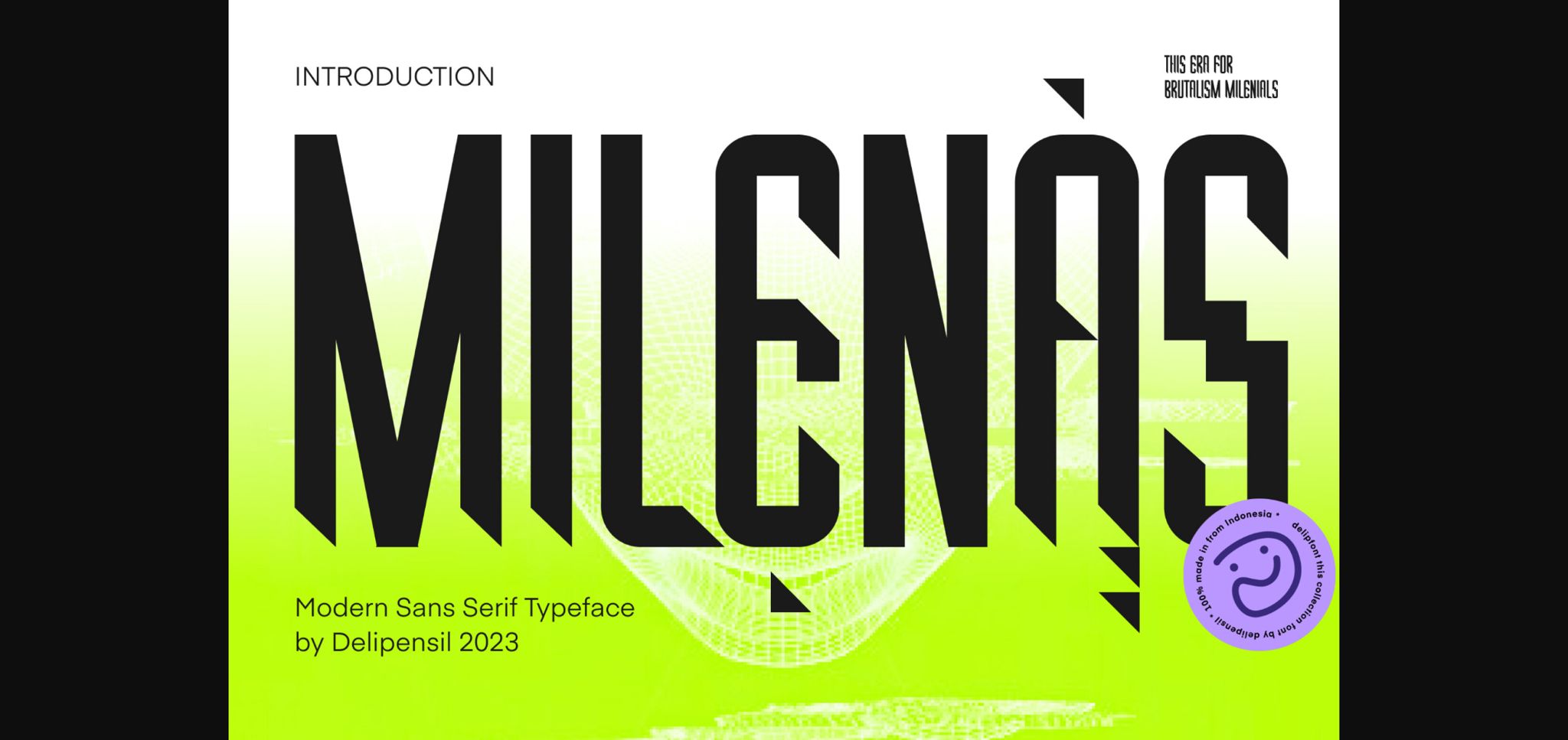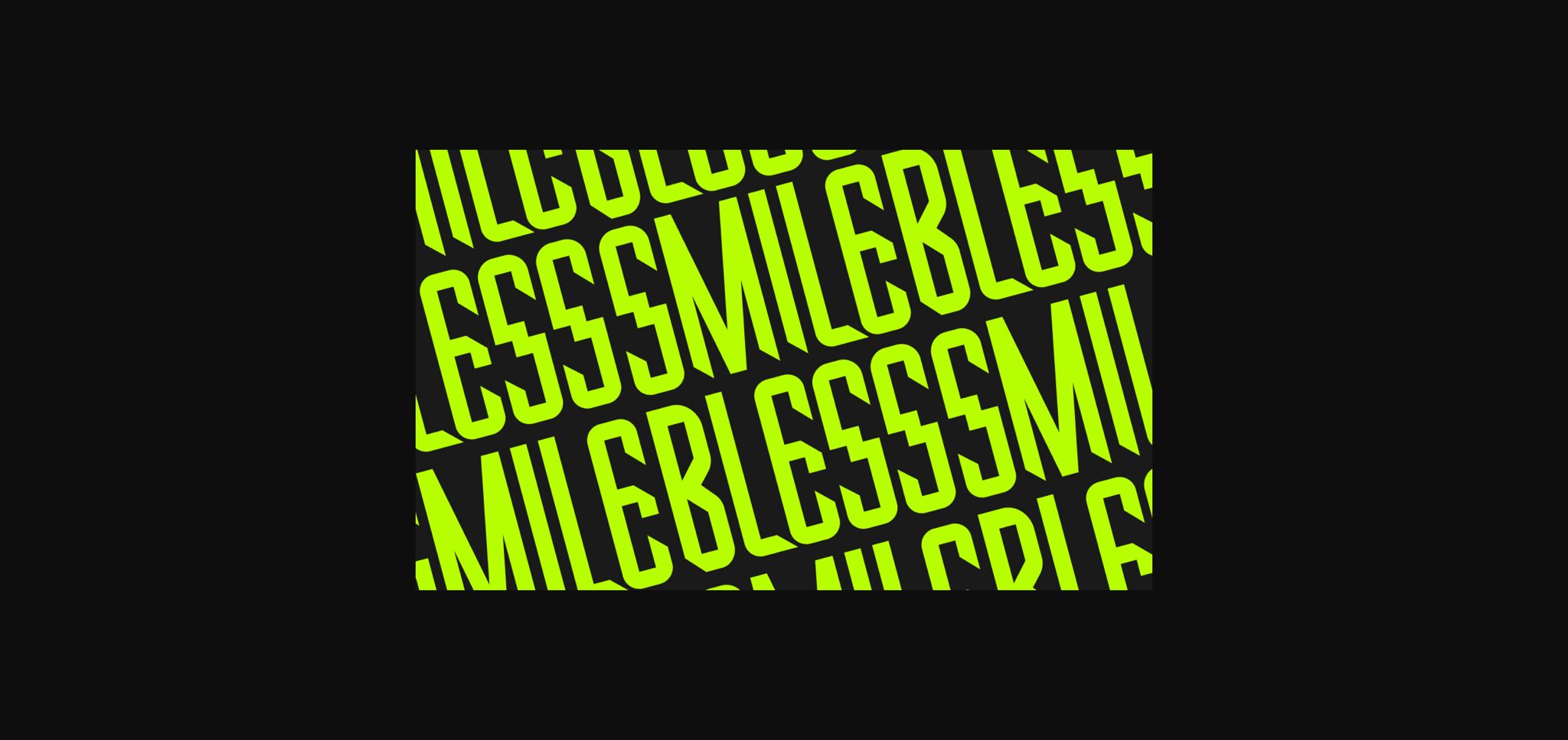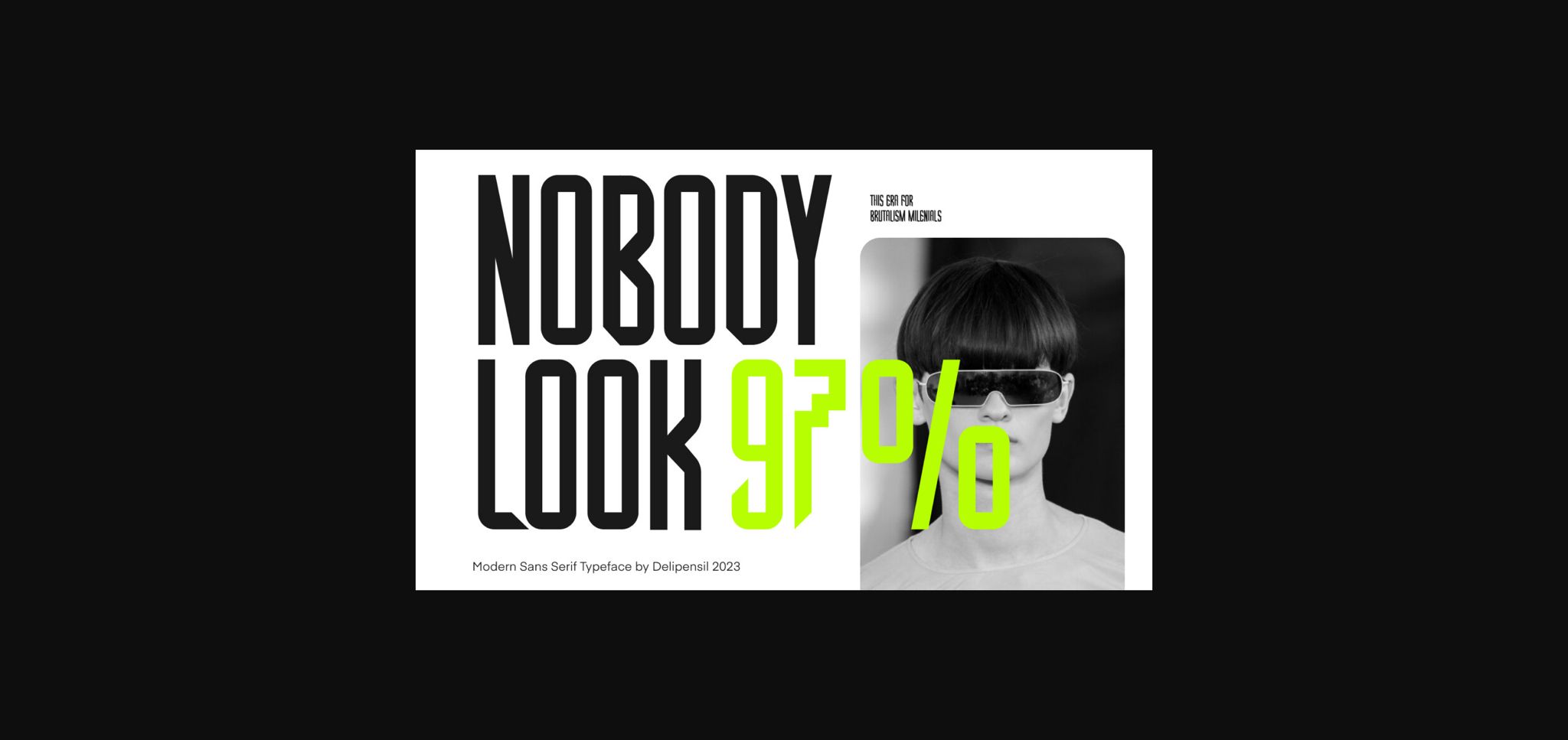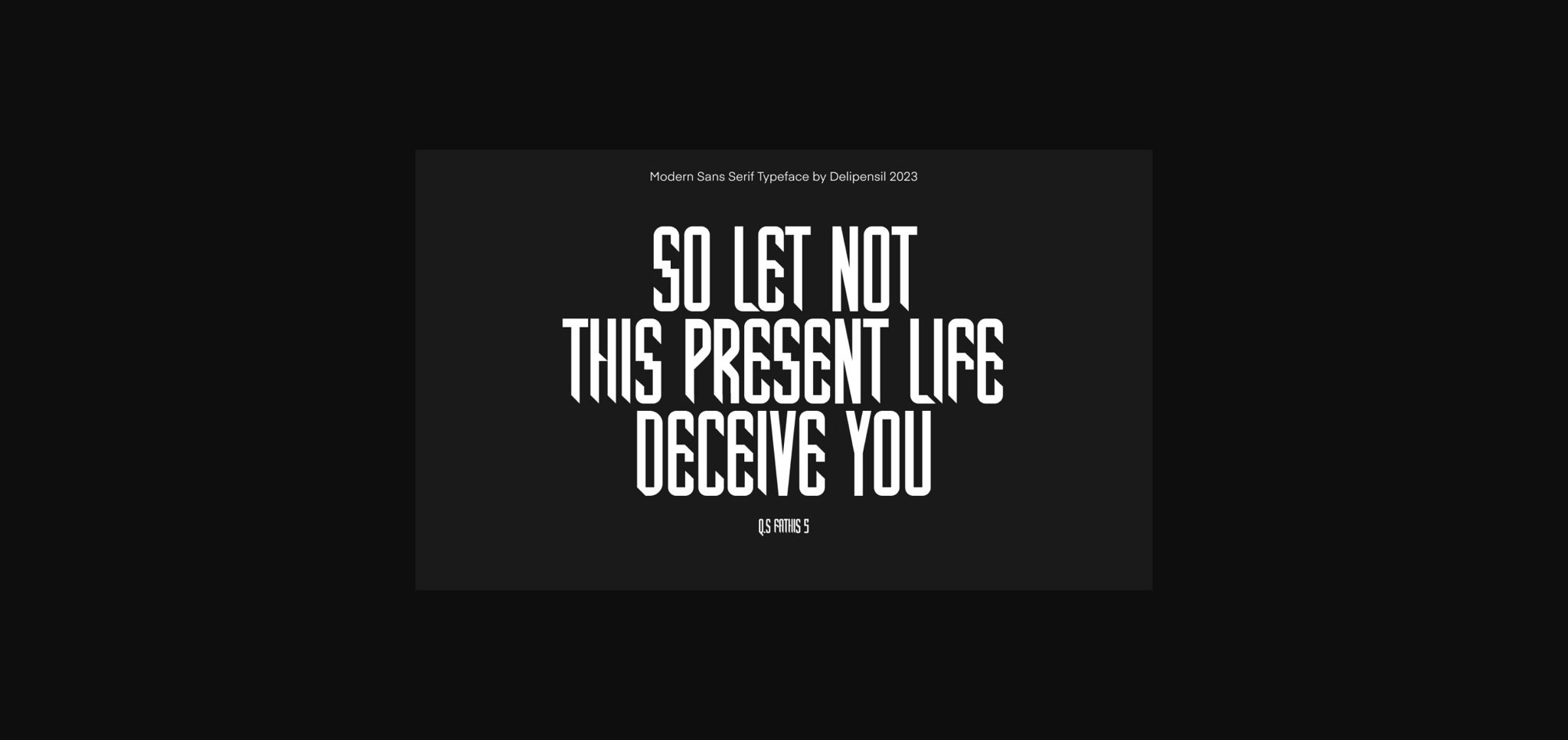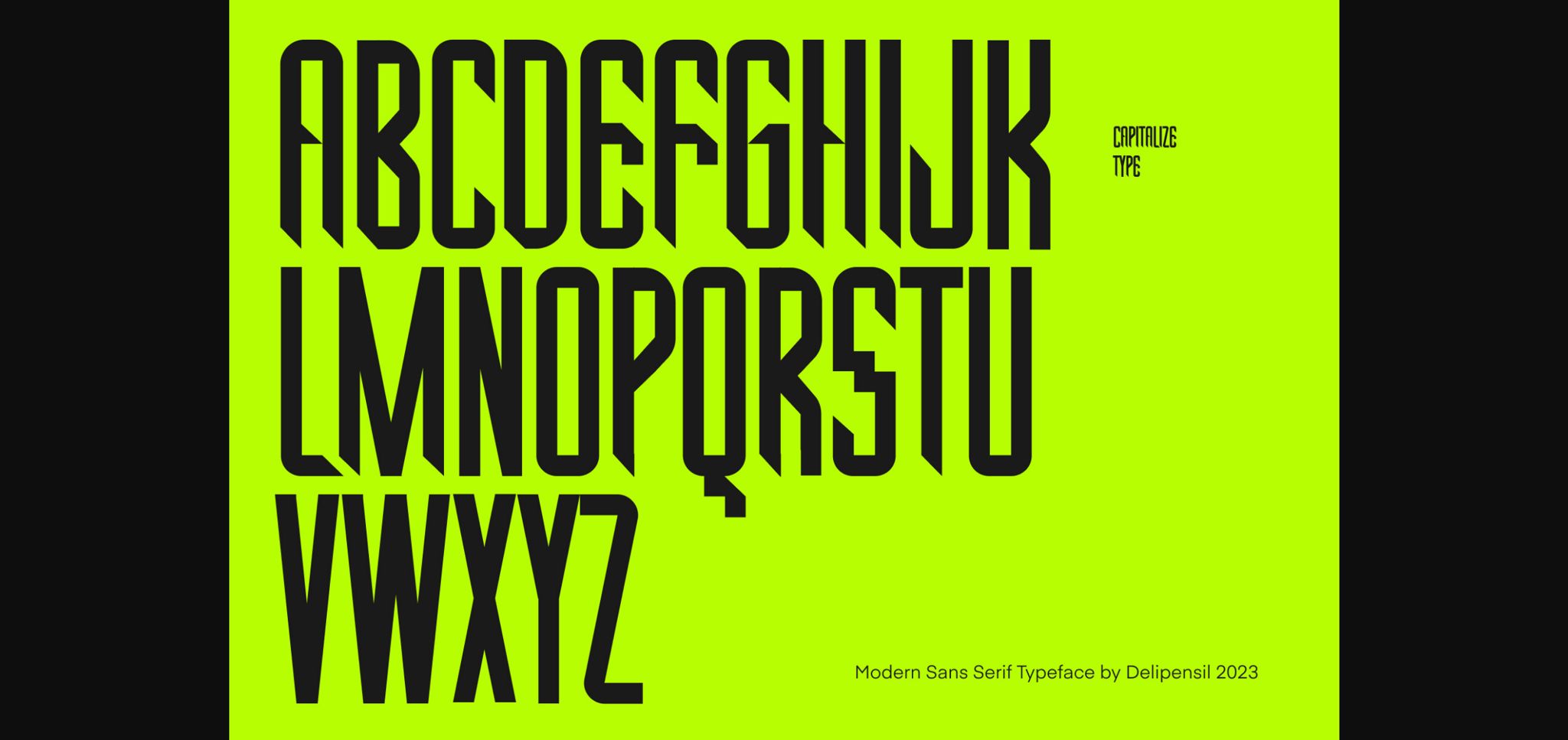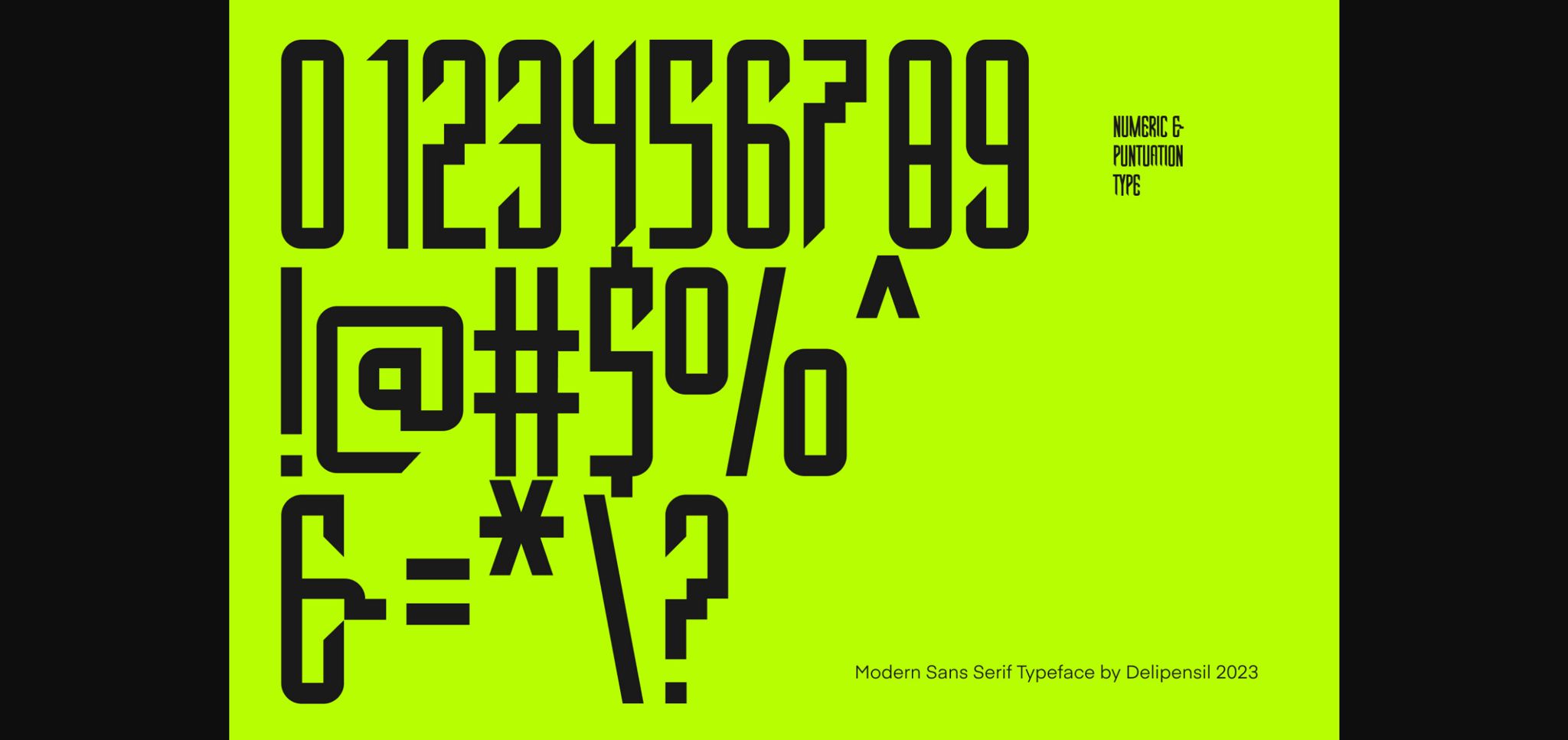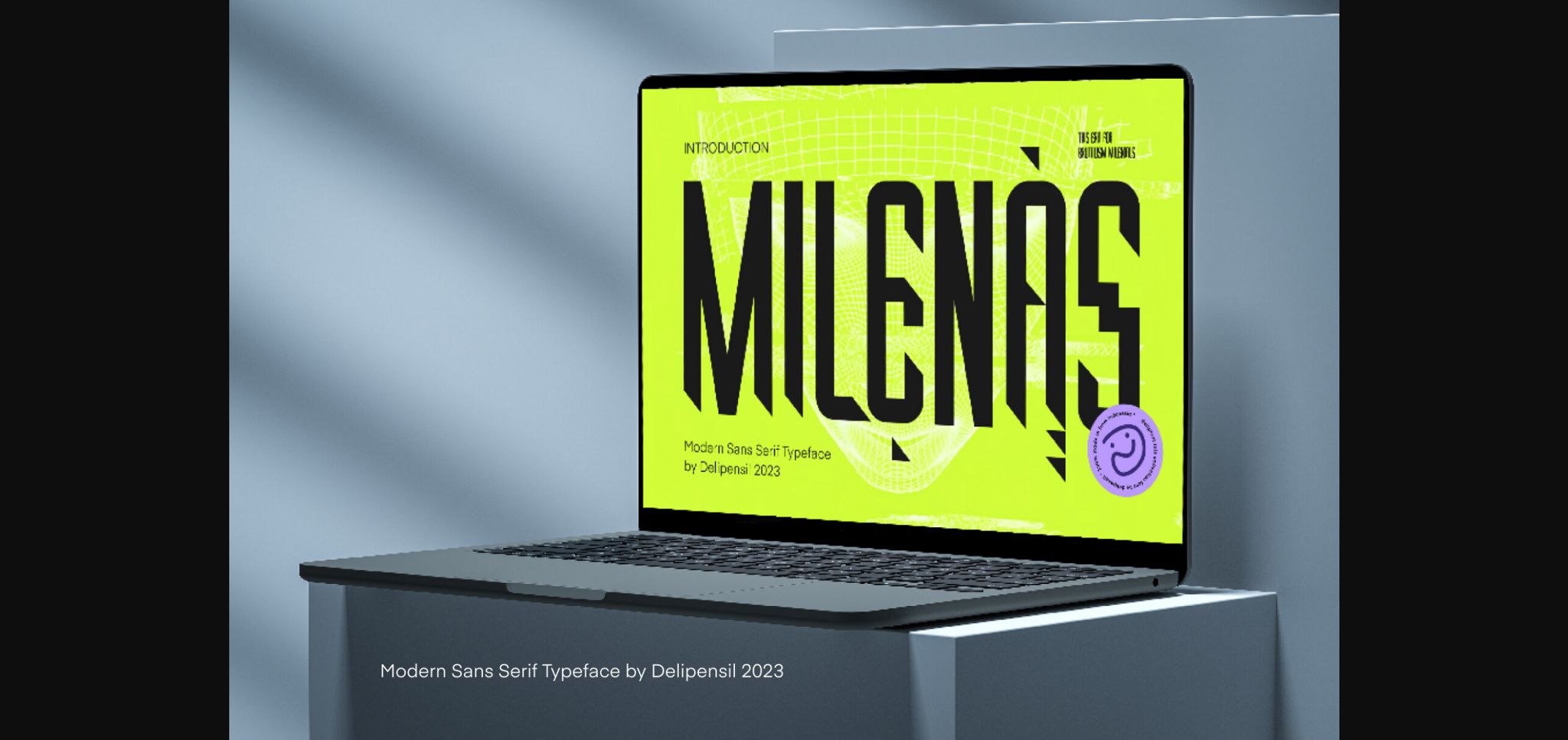
About Milenas Font
Meet “MILENAS” – a font tailored for the bold and cutting-edge style of Brutalism in contemporary design. Elevate your headlines with its strong and impactful presence, making every title stand out with striking boldness. “MILENAS” seamlessly blends the essence of Brutalism to create a futuristic aesthetic, injecting modernity into your designs. Let your typography make a bold statement, capturing the essence of this era’s design trends and ensuring your creations leave a lasting impact.